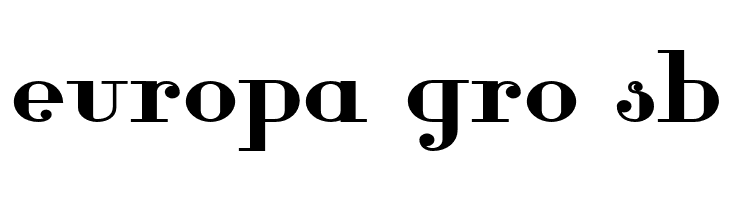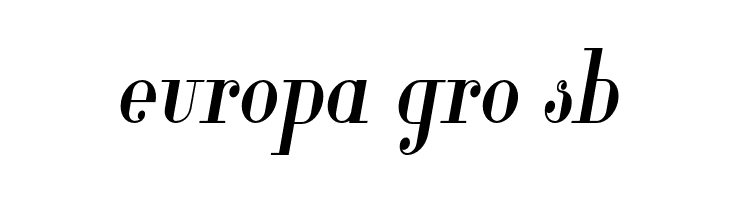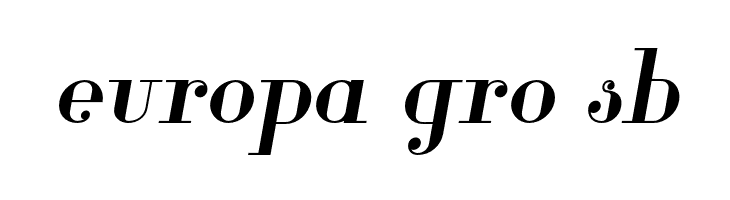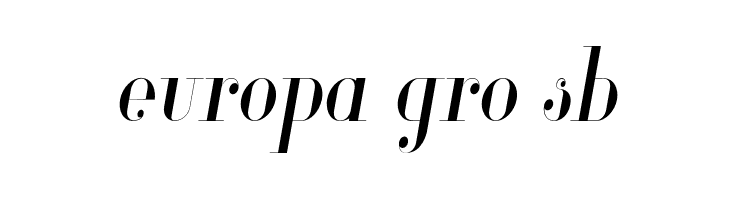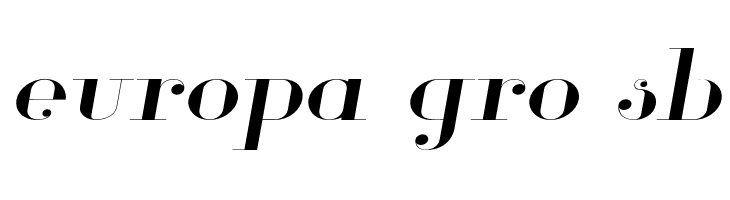
An elegant, extended italic typeface with high contrast and refined serifs.
A classic serif font with elegant curves and flared ends.
An elegant, high-contrast extended italic font with a classic and sophisticated style.
A bold, extended serif font with high contrast and elegant details.
Elegant, modern, and italic with high contrast and condensed form.
An elegant, high-contrast italic typeface with medium weight and refined style.
An elegant, high-contrast, light, condensed italic typeface.
A high-contrast, elegant serif font with a modern yet classic appeal.
An elegant, high-contrast, light italic font with extended width and classic serifs.